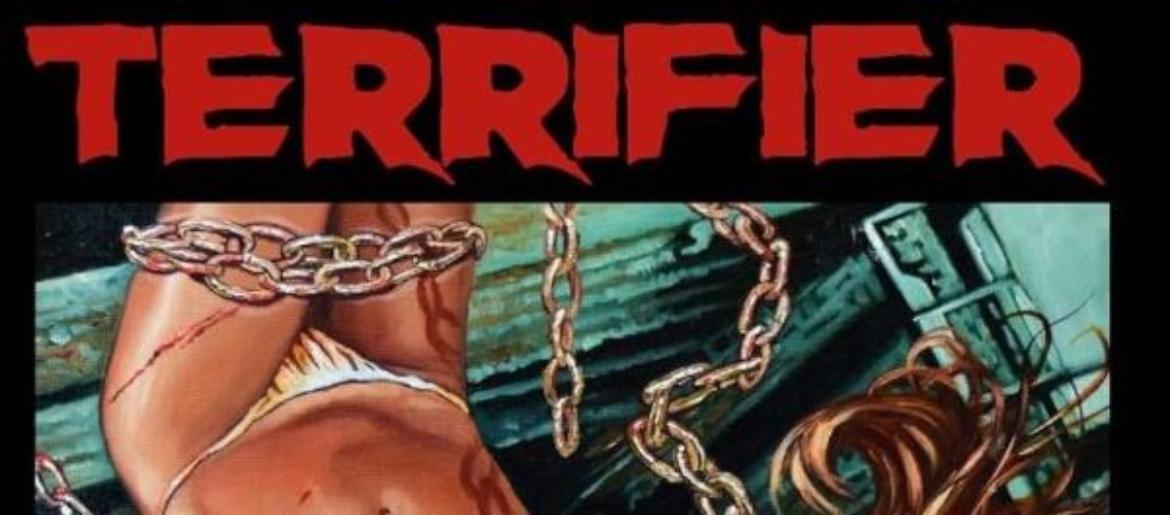
Terrifier Font
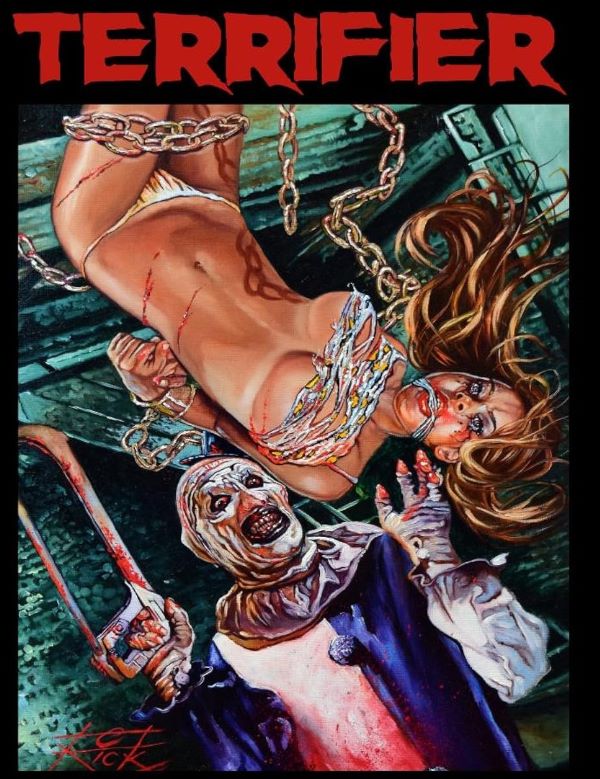
What Font Does Terrifier Use?
The Terrifier font is best represented by Massacre, a bold, horror-style typeface designed by Norfok. This font is known for its jagged, blood-drip letterforms that perfectly capture the disturbing, gritty, and brutal tone of the franchise’s branding. It is available to download and widely used by horror enthusiasts to recreate the film’s chilling visual identity.
About Terrifier
Terrifier is a 2016 slasher horror film written and directed by Damien Leone, introducing the now-infamous villain Art the Clown, portrayed by David Howard Thornton. The film follows two women who encounter Art on Halloween night, leading to a night of extreme, graphic violence and psychological terror.
The movie gained cult status for its practical gore effects, relentless brutality, and silent yet menacing performance by Thornton. It later expanded into a successful horror franchise with sequels, becoming a modern cult favorite among hardcore horror fans due to its raw, grindhouse-style atmosphere and unapologetically extreme horror.